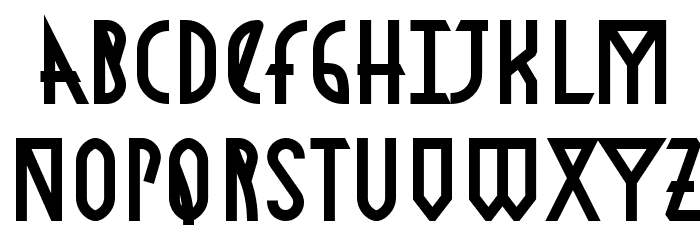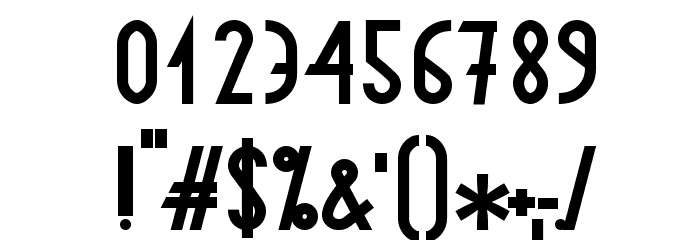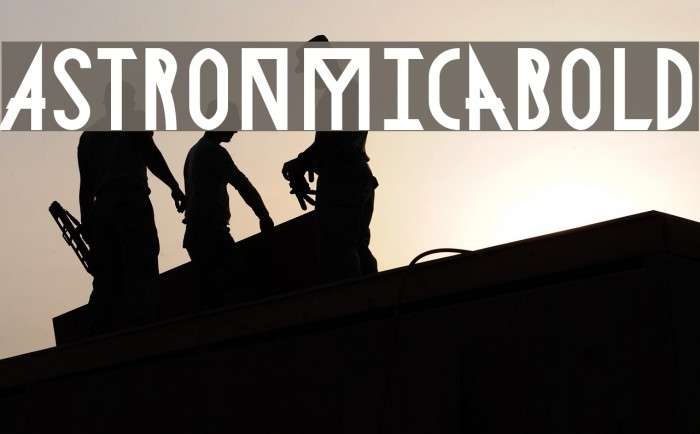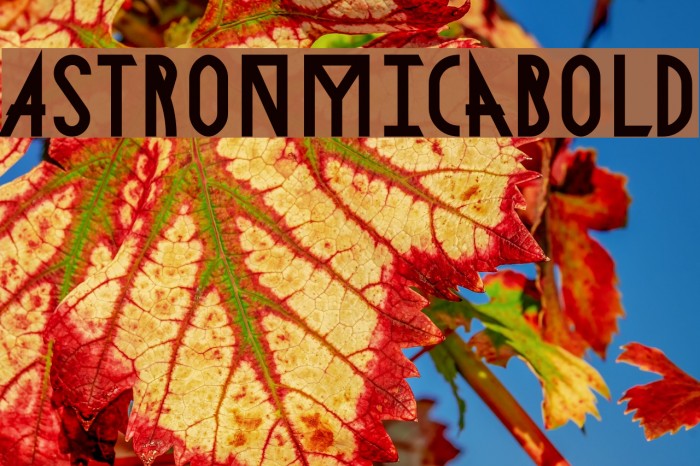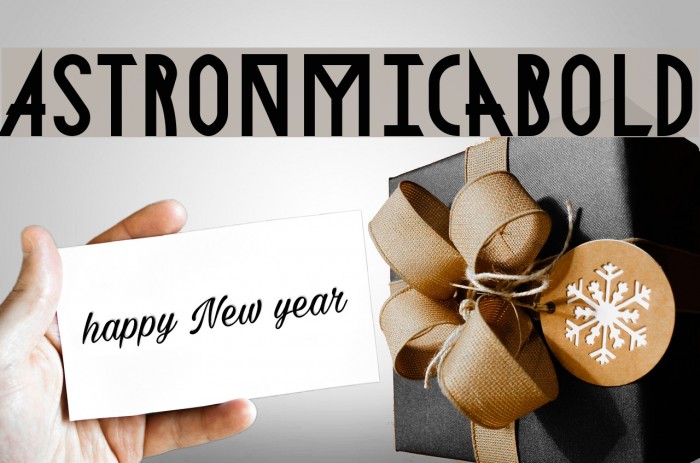
AstronmicaBold Font
This font features a futuristic and angular design, characterized by sharp edges and geometric shapes. The uppercase letters exhibit a bold and commanding presence, with unique cuts and angles that give them a distinct, modern look. The lowercase letters maintain the same angular style, ensuring consistency throughout the typeface. Numbers are designed with the same attention to detail, making them easily readable while maintaining the overall aesthetic. Special characters are crafted to match the bold and innovative style, making this font suitable for creative and eye-catching designs.
A bold, futuristic font with sharp, angular design elements.
- Proposed Projects: Ideal for sci-fi themed projects, technology branding, video game titles, and modern posters.